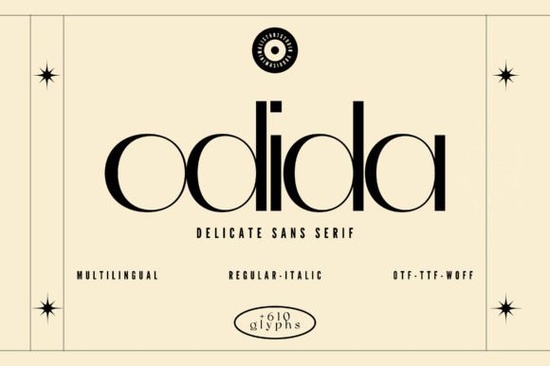
If you’re looking for a clean, modern typeface that adds polish without shouting for attention, the Odida font might be exactly what your next project needs. It’s a sans serif with subtle curves and balanced letterforms designed to feel refined but not stiff. Whether you’re designing product packaging, social media graphics, or branding materials for a boutique shop, this font brings a quiet confidence to your layouts.
What makes Odida stand out is how effortlessly it fits into luxury-themed projects. Think skincare labels, boutique hotel logos, or minimalist wedding stationery. The spacing between characters feels intentional, never cramped, which helps your text breathe on screen or in print. You’ll find it especially useful if you’re creating mockups for fashion brands or beauty influencers who want their visuals to feel elevated but approachable.
Who should consider using this font?
If you run a small business or side hustle focused on handmade goods, wellness products, or curated lifestyle content, Odida can help your brand look more cohesive. Print-on-demand sellers often need fonts that photograph well on mugs, tote bags, or apparel and this one scales cleanly from large headlines down to tiny care instructions. Crafters who design SVG files or digital planners also benefit from its legibility at small sizes.
- Fashion designers use it for lookbook titles or boutique signage
- Beauty bloggers pair it with script fonts for contrast in Instagram carousels
- Etsy shop owners ideal for product tags, banners, or thank-you cards
- Wedding stationers works beautifully as a secondary font alongside ornate scripts
You’ve probably seen dozens of sleek sans serifs labeled “modern” or “minimalist.” What sets Odida apart is its gentle tapering and slightly rounded terminals details that keep it from feeling sterile. If you’ve used fonts like Montserrat or Poppins before, you’ll notice Odida has softer edges and a more relaxed rhythm. That makes it friendlier for customer-facing designs while still holding up in professional contexts.
Any tips for pairing it with other typefaces?
A common mistake is pairing two ultra-clean fonts together it can flatten your design’s personality. Instead, try combining Odida with something textured or expressive. For example:
- A delicate script like Marigold Script for feminine brands
- A bold slab serif like Rockwell Modern for editorial contrast
- A hand-drawn brush font for organic, artisanal vibes
The key is letting Odida handle body text or subheadings while your accent font grabs attention. This balance keeps your message clear but visually interesting.
Does it support special characters or languages?
Odida includes extended Latin characters, so it supports most Western European languages perfect if you’re designing for international clients or bilingual packaging. You’ll also find stylistic alternates and ligatures tucked inside (if you’re using software like Adobe Illustrator or Affinity Designer), which let you tweak certain letters for extra flair without breaking consistency.
Fonts like this don’t scream for attention they earn it by making everything around them look better. If your goal is clarity with character, Odida’s worth a closer look.